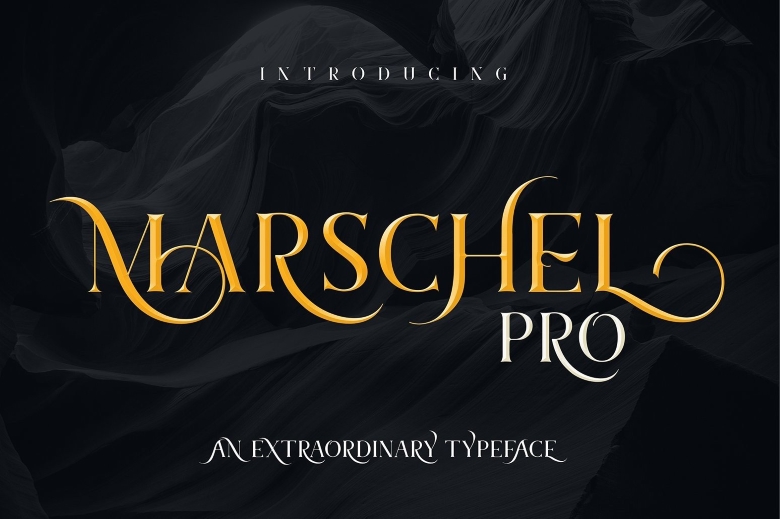
Marschel Pro Font
Marschel Pro is an outstanding font of display category which has the beauty of elegance. Regarding any subject matter, this font will be a great addition to the fonts’ arsenal because it can help to elevate any work.
Marschel Pro Display Font Family